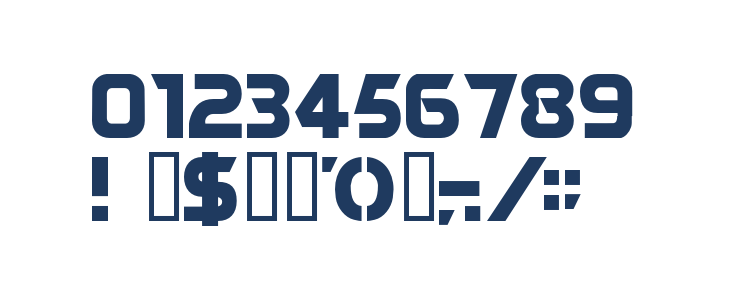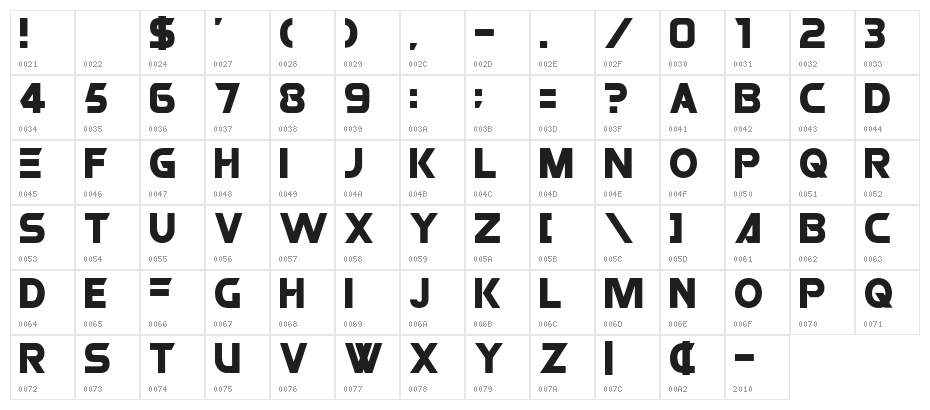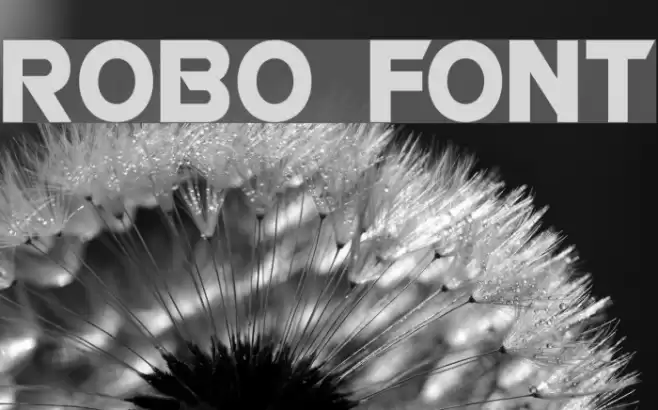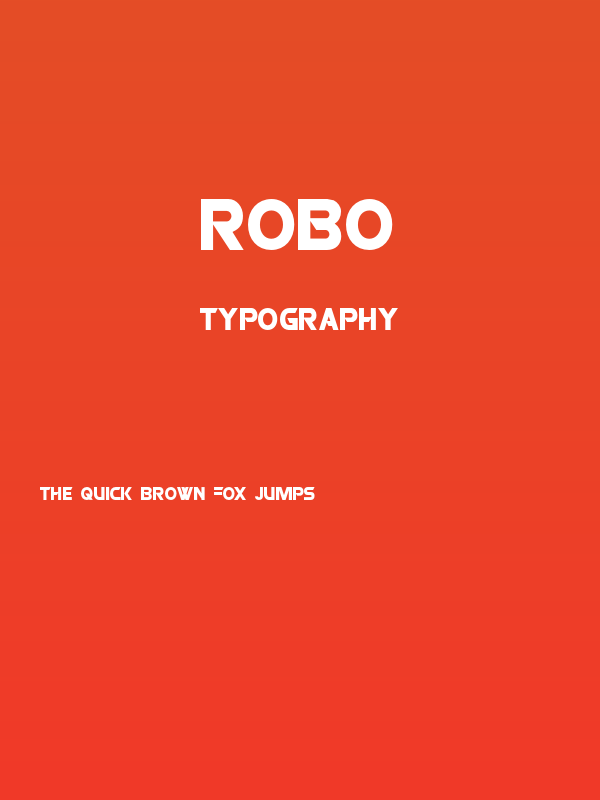
ROBO Font
ROBO Description
This font features a bold and futuristic design, characterized by its geometric shapes and strong lines. The uppercase letters are particularly striking, with some characters incorporating unique cutouts and angles that add a sense of dynamism and modernity. The numbers and special characters follow the same bold aesthetic, ensuring consistency across all glyphs. The overall appearance is clean and impactful, making it suitable for projects that require a strong visual presence.